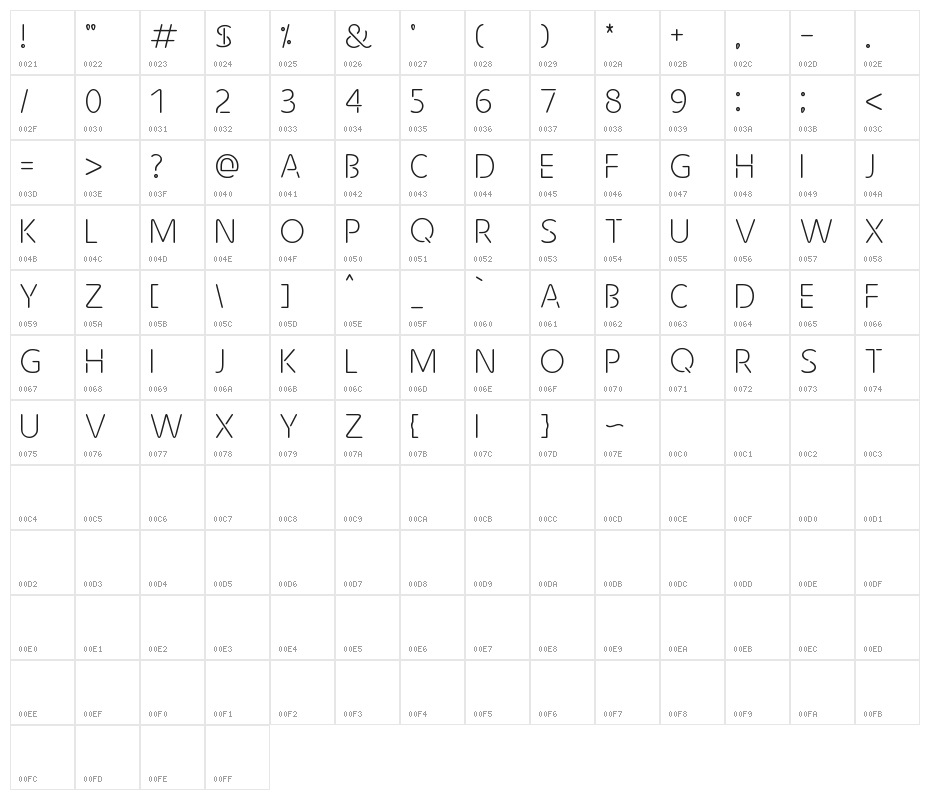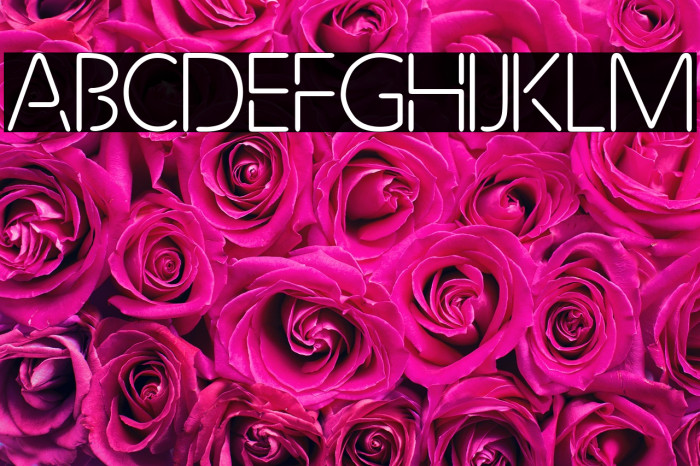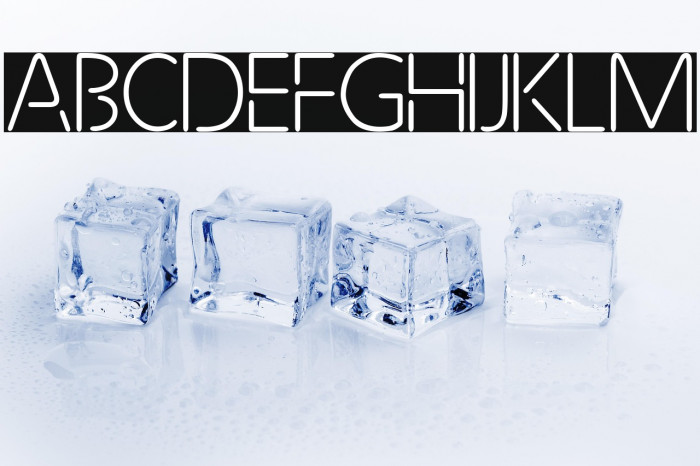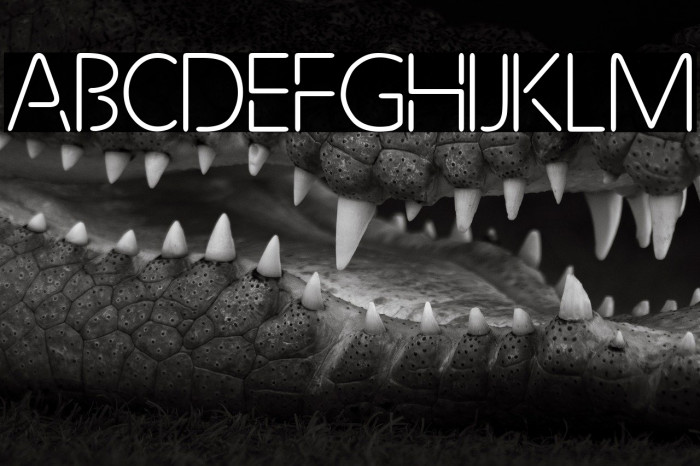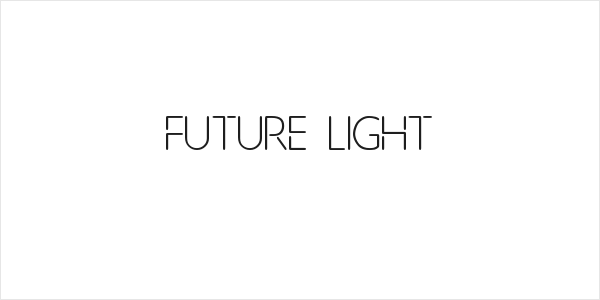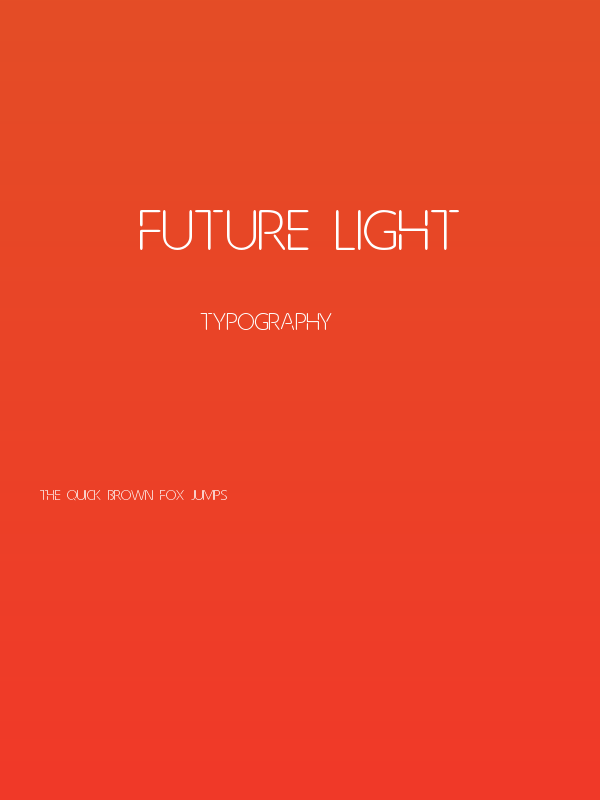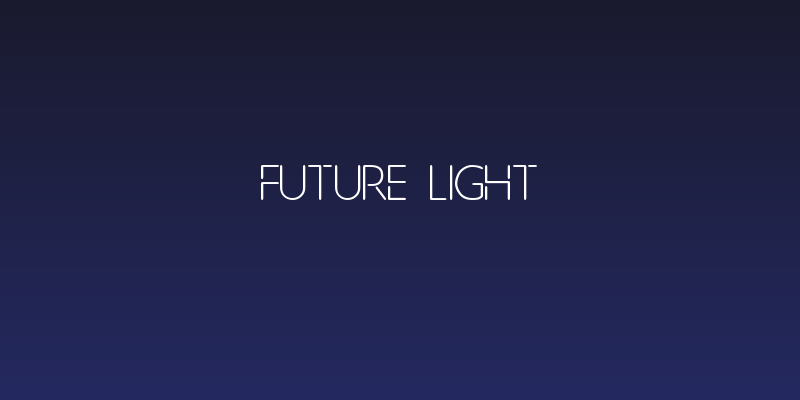
Future Light Font
Future Light Description
This font features a sleek, modern design with a geometric structure. The characters are composed of clean, straight lines and smooth curves, giving it a futuristic and minimalistic appearance. The uppercase and lowercase letters maintain a consistent style, with a uniform stroke width that contributes to its contemporary look. The numerals and special characters are designed to match the overall aesthetic, ensuring a cohesive visual experience. The font's simplicity and clarity make it highly legible, even at smaller sizes, while its unique style adds a touch of sophistication.
| Proposed Projects | Ideal for tech branding, modern web design, futuristic posters, and innovative product packaging. |